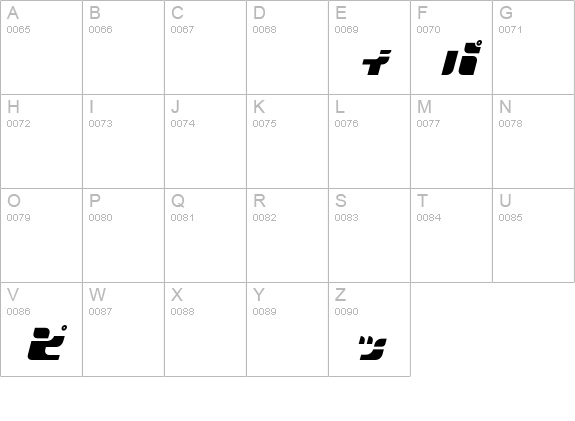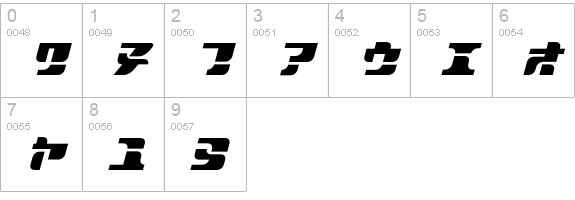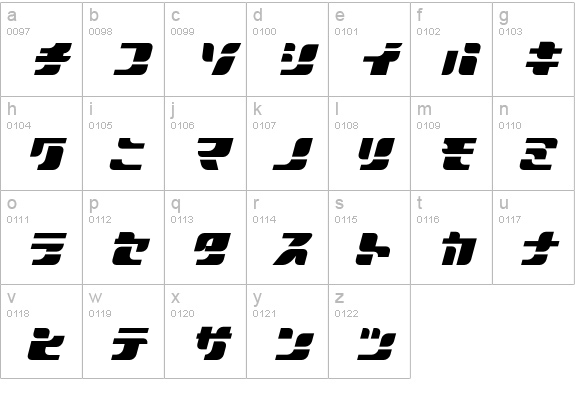
Sportswear-JFaster Font Details
Introducing Sportswear-JFaster, a bold and energetic font that perfectly captures the spirit of athleticism and sportsmanship. Designed with sleek lines and a dynamic appearance, this font is the ideal choice for any sports-related project, whether it's designing team jerseys, creating motivational posters, or crafting captivating advertisements. With its strong and confident letterforms, Sportswear-JFaster exudes a sense of power and determination, making it the perfect companion for any sports brand or event. Its versatility allows it to be used across a wide range of applications, from digital platforms to print media, ensuring that your message stands out and leaves a lasting impression. But what sets Sportswear-JFaster apart is its unique feature of being freely available to download at FontsMarket.com. Yes, you read that right! This font is not only visually stunning and professionally crafted, but it is also accessible to all, without any cost attached. FontsMarket.com, a trusted source for high-quality fonts, proudly offers this font as a free download, allowing you to elevate your sports-related designs without breaking the bank. Sportswear-JFaster is not just another font; it is a statement of passion, dedication, and the pursuit of excellence. So why settle for ordinary when you can have extraordinary? Download Sportswear-JFaster today from FontsMarket.com and unleash the power of this remarkable font to take your sports-inspired designs to new heights. Get ready to inspire and captivate with Sportswear-JFaster, the perfect font for all your athletic endeavors.